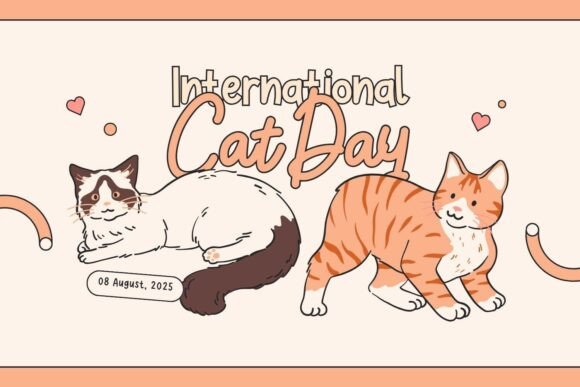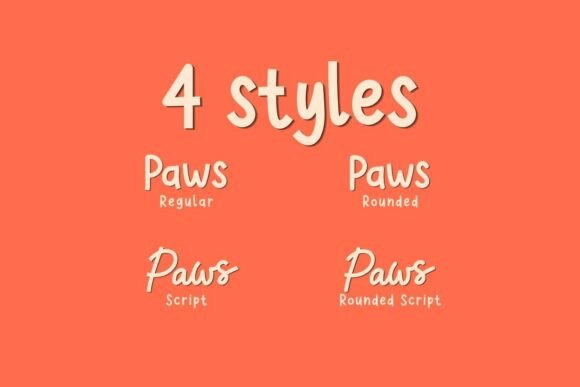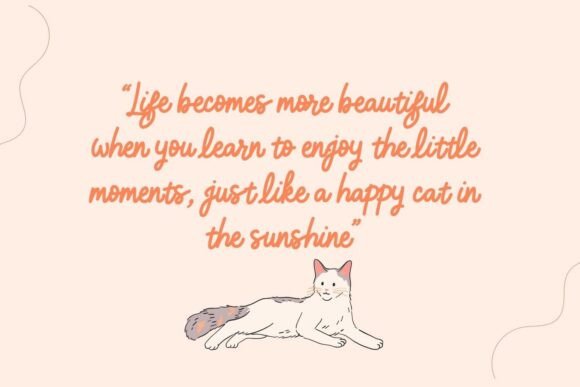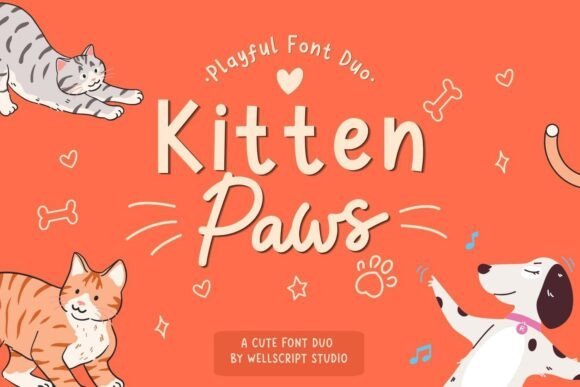
Introduction to Kitten Paws Font
Meet Kitten Paws, a cute and playful font duo designed to bring warmth, joy, and charm to your creative projects.
With its soft handwritten style, sweet rounded letters, and lovely script look, this font is perfect for creating adorable and memorable designs Kitten Paws is ideal for pet branding, kids products, packaging, stickers, greeting cards, invitations, social media posts, merchandise, handmade crafts, and many other cute design projects.
Key Features of Kitten Paws Font
Why Choose Kitten Paws Font?
Kitten Paws Font offers exceptional quality and versatility, making it a valuable addition to your design toolkit. Whether you’re creating for personal projects or commercial use, Kitten Paws Font delivers professional results.